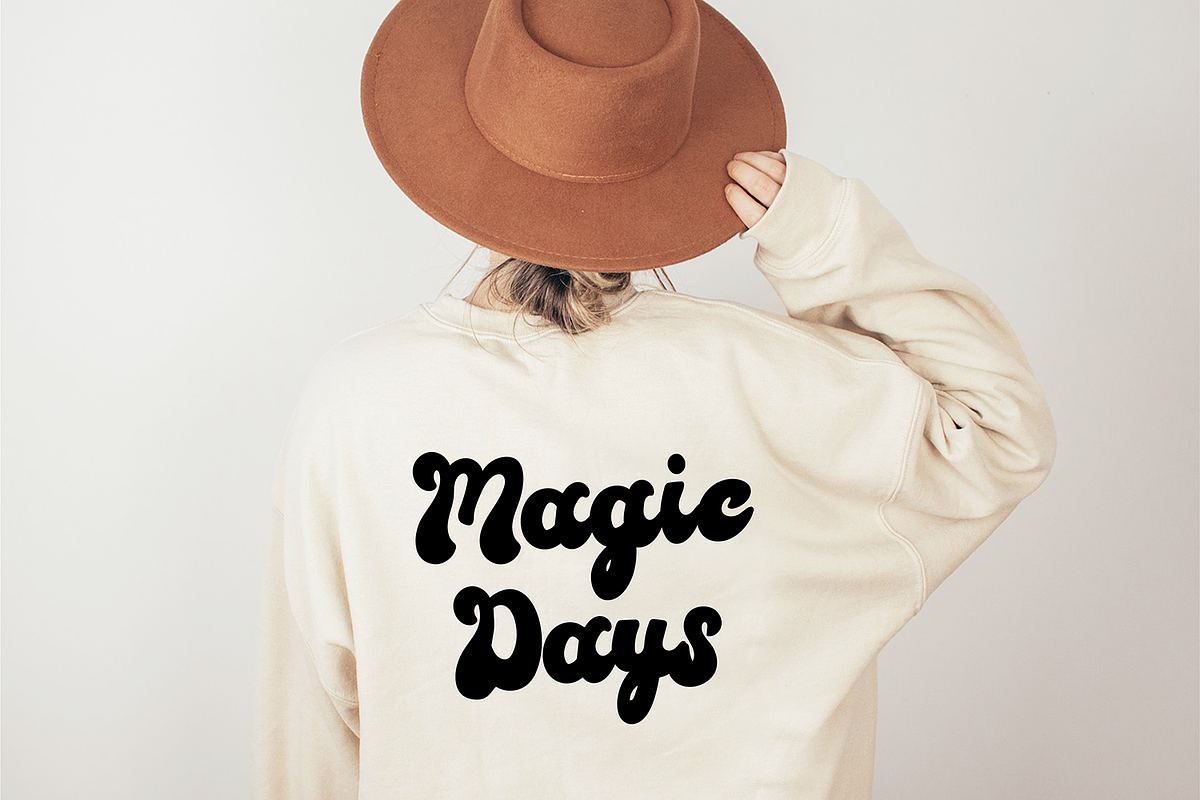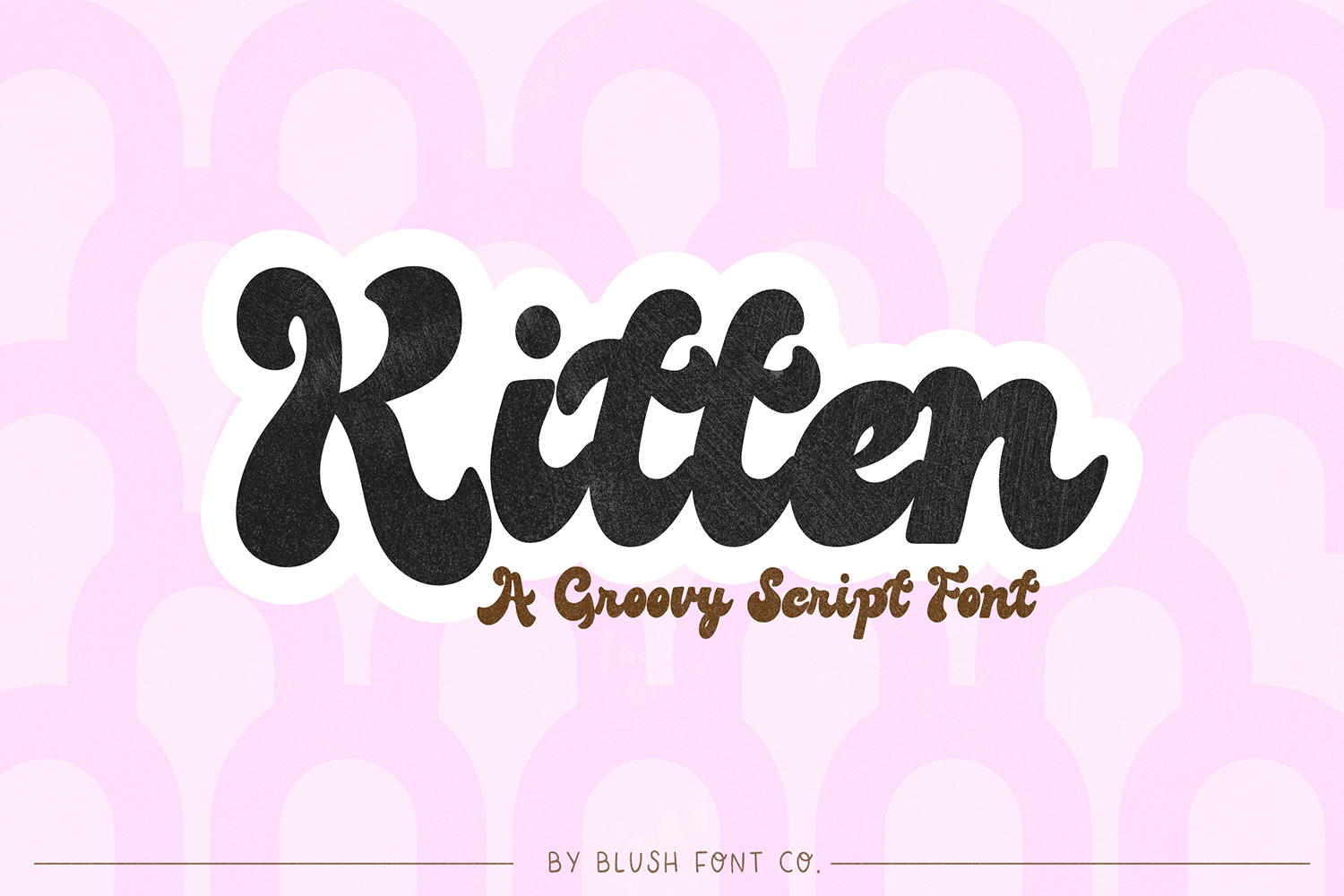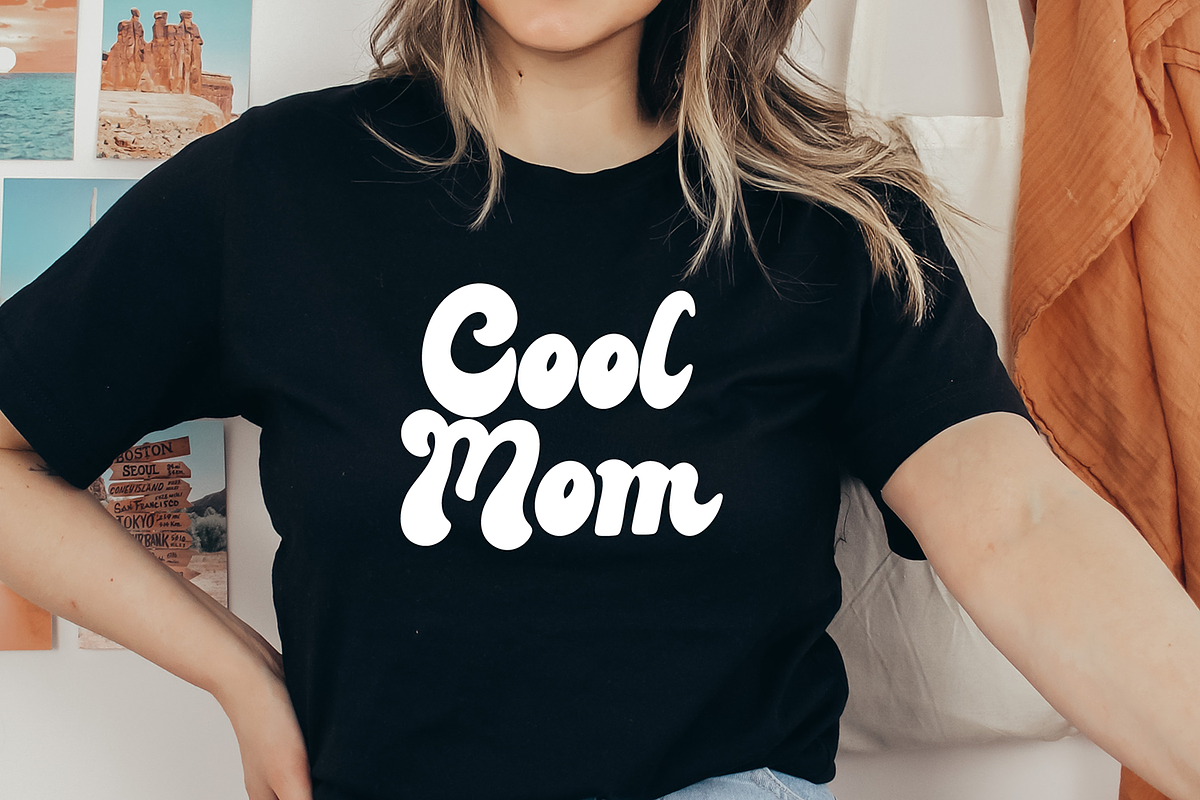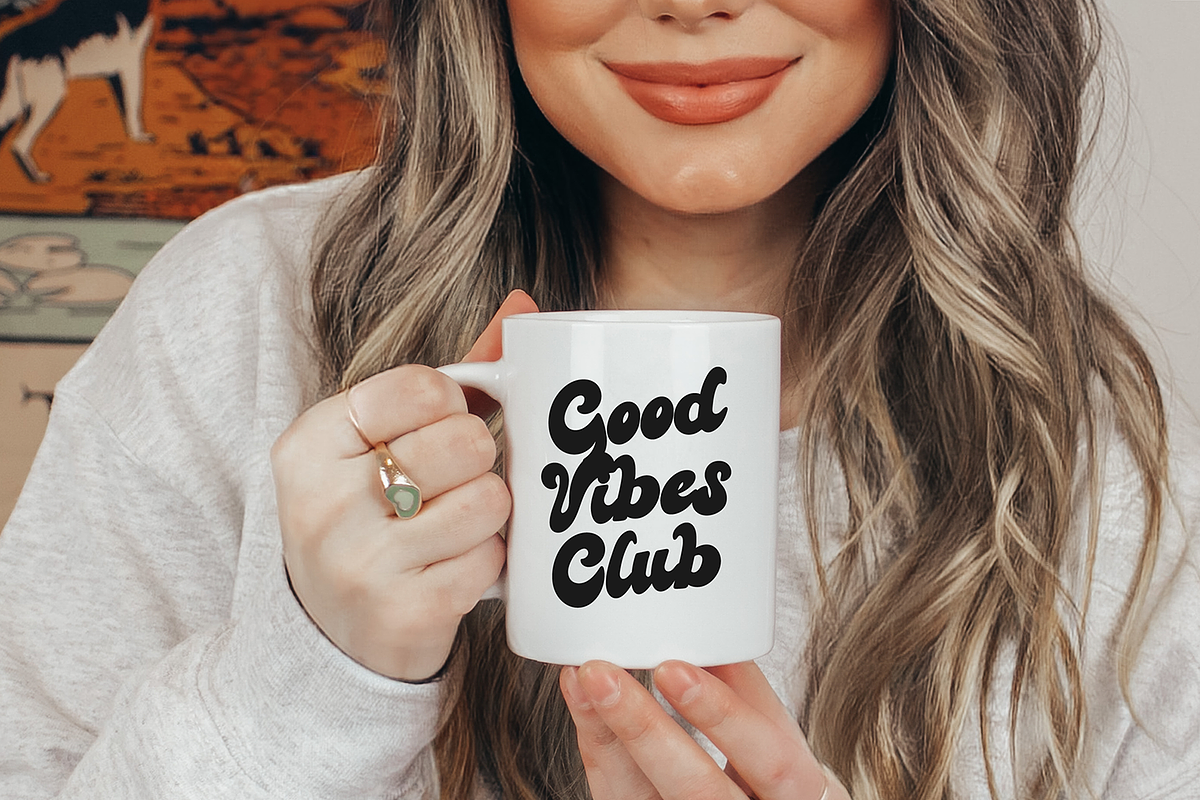
KITTEN Retro Script Font
"Kitten" a bold retro script font
Kitten is a stylish retro font script font that is perfect for social media or crafty projects. Use it for branding, procreate, crafts for decor, invitations, and more! This font includes upper and lowercase glyphs, numbers, and basic punctuation marks.